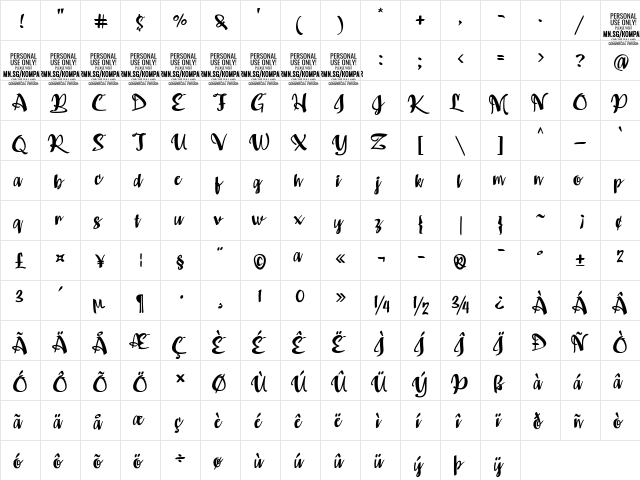
Kompar Bold PERSONAL USE ONLY Regular
| Foundry | Mans Greback |
| Designer | Mans Greback, Rodi de Asis |
Design Context for Kompar Bold PERSONAL USE ONLY Typeface
Kompar Bold PERSONAL USE ONLY is a composed and adaptable typeface that performs quietly and consistently across a wide range of design contexts. Its bold stroke weight gives it real presence on the page.